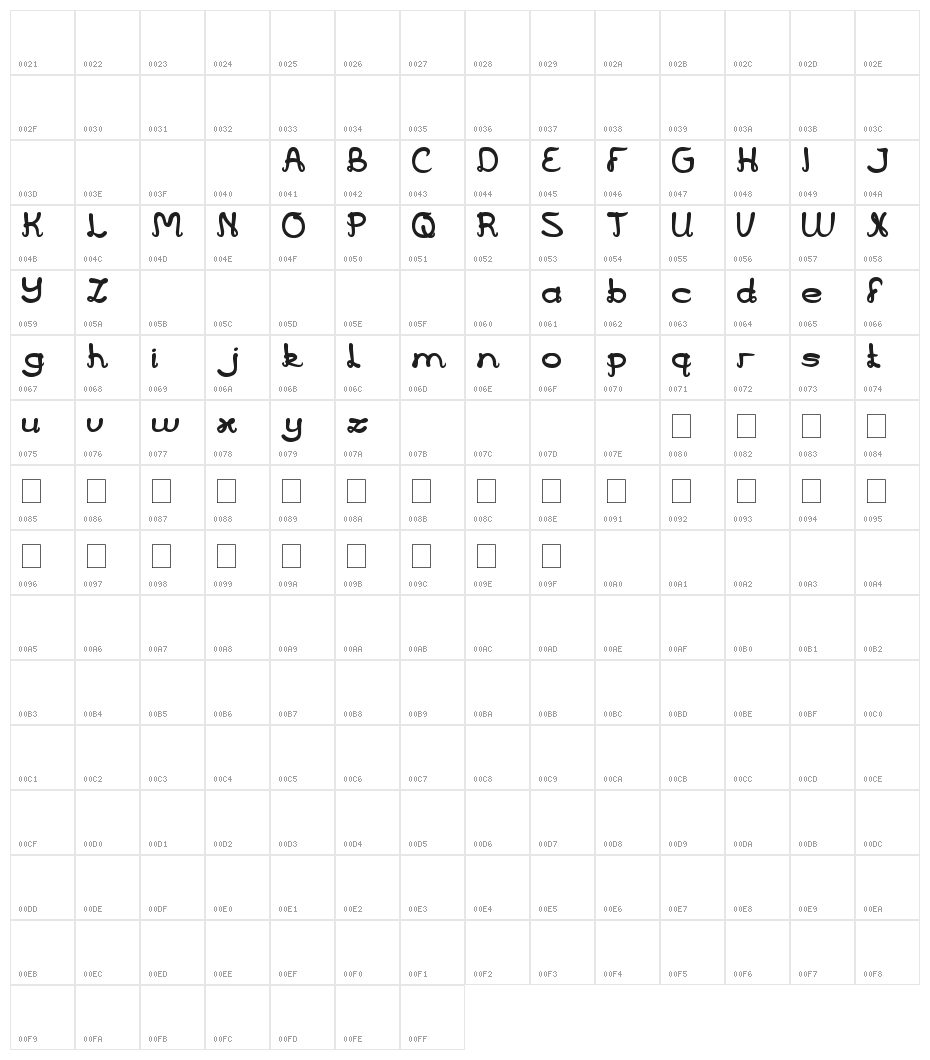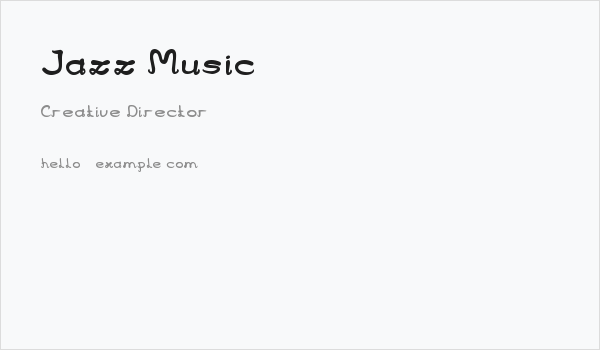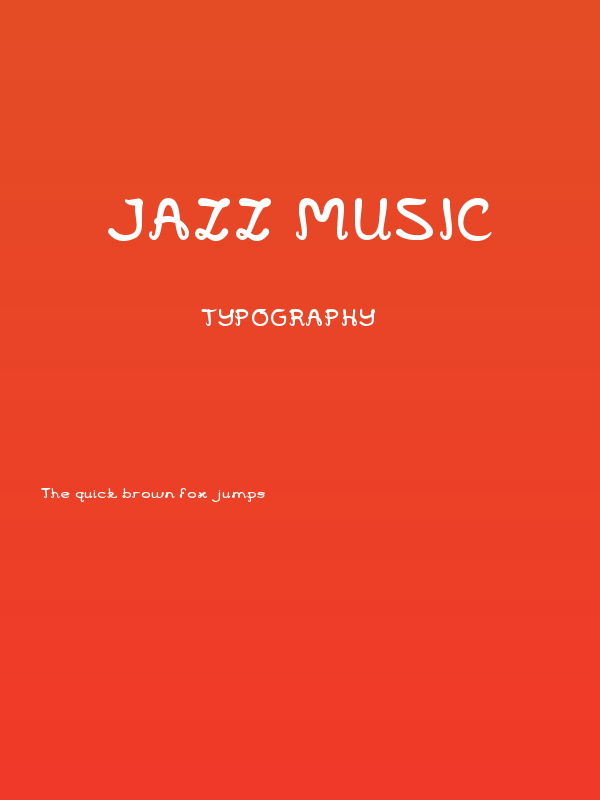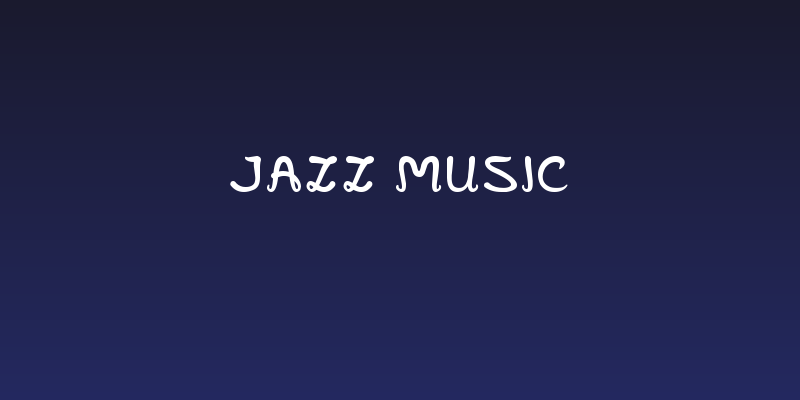
Jazz Music Font
Jazz Music Description
This font features a playful and rhythmic design, reminiscent of the lively and improvisational nature of jazz music. The characters are bold and rounded, with a flowing, cursive-like quality that suggests movement and energy. The strokes are consistent in thickness, providing a uniform appearance that enhances readability while maintaining a whimsical charm. The uppercase letters are slightly larger and more pronounced, while the lowercase letters maintain a smooth, connected style. This font exudes a sense of fun and creativity, making it ideal for projects that aim to capture an artistic or musical essence.
| Proposed Projects | Ideal for music event posters, album covers, artistic branding, and creative invitations. |